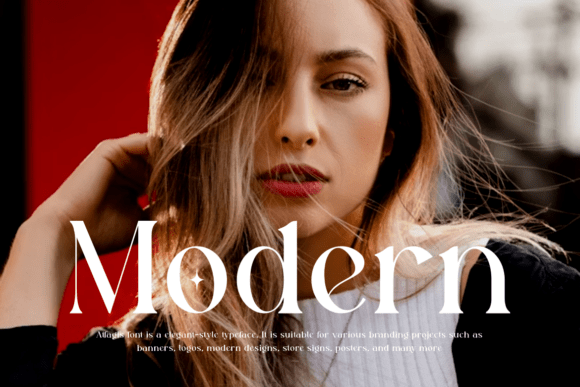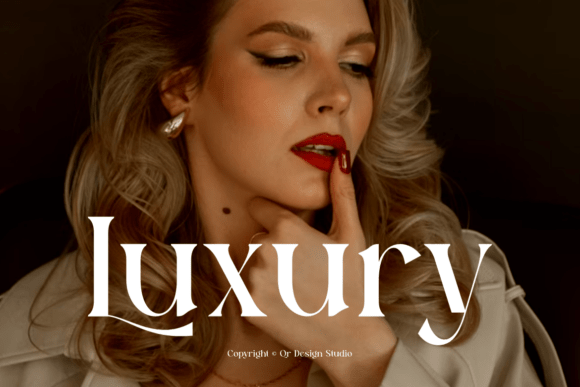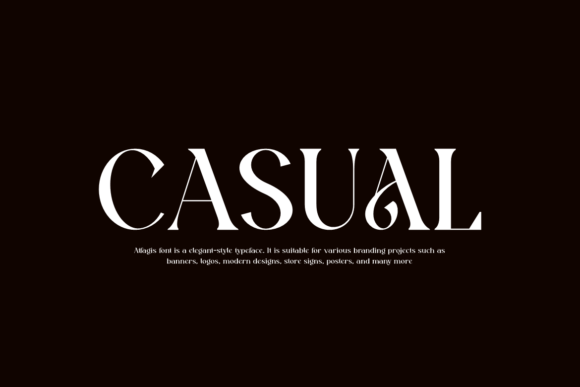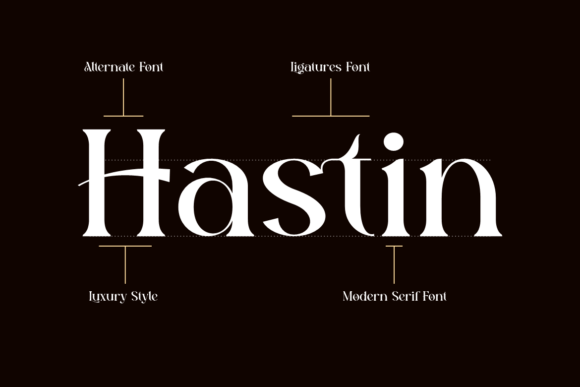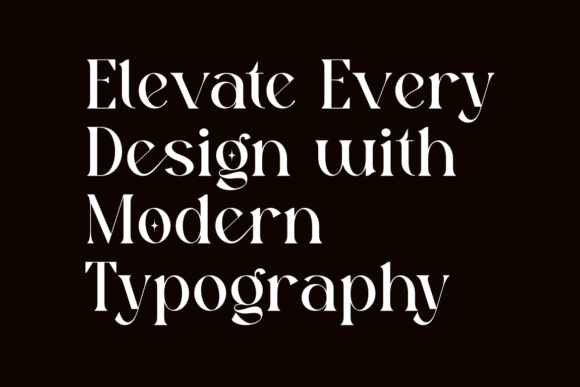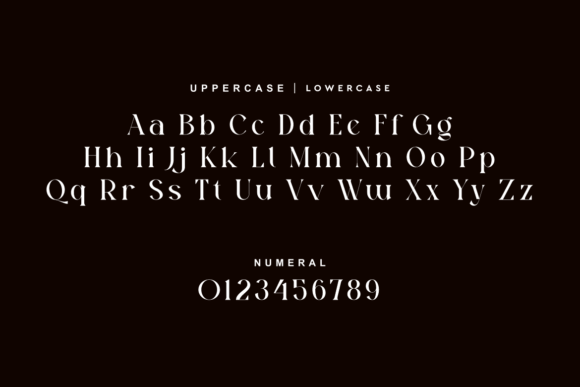
Unlock High-Fashion Allure with Atfagis Font
In the world of high-end design, typography plays a crucial role in conveying luxury, sophistication, and elegance. For designers and crafters seeking to elevate their visual branding, Atfagis Font is the ultimate game-changer. This modern luxury serif font is designed to command immediate prestige, making it the perfect choice for upscale cosmetic logos, boutique jewelry packaging, haute couture runway banners, high-end real estate lookbooks, and prominent fashion magazine covers.
A Contemporary Avant-Garde Masterpiece
Atfagis Font distorts traditional Roman proportions, reimagining them into a contemporary avant-garde masterpiece. Its unique design elements create a distinctive visual identity that exudes high-fashion allure. The font’s regular display typeface is meticulously crafted to provide a sense of luxury and refinement, making it perfect for designers seeking to create high-end visual branding.
Comprehensive Multilingual Support
In today’s global market, designers need fonts that can cater to diverse linguistic requirements. Atfagis Font provides comprehensive multilingual support, ensuring that your design workflow can seamlessly adapt to various languages and regions. This feature makes Atfagis an ideal choice for global high-end design workflows, allowing designers to create visual branding that resonates with diverse audiences.
Instant Shortcut to Elite Visual Branding
Atfagis Font acts as an instant shortcut to elite visual branding, cutting beautifully through rich photography or minimalist editorial canvas space. Its premium design elements instantly elevate the visual appeal of any design project, making it perfect for high-end applications. Whether you’re designing a luxury cosmetic logo or a high-end real estate lookbook, Atfagis Font provides the perfect typographic solution.
Perfect for High-End Design Applications
Atfagis Font is the ultimate strategic centerpiece choice for various high-end design applications, including:
- Upscale cosmetic logos: Add a touch of luxury to your cosmetic brand with Atfagis Font’s elegant and sophisticated design.
- Boutique jewelry packaging: Elevate your jewelry packaging with Atfagis Font’s premium design elements, perfect for high-end boutiques.
- Haute couture runway banners: Make a statement with Atfagis Font’s avant-garde design, perfect for haute couture runway banners.
- High-end real estate lookbooks: Showcase luxury properties with Atfagis Font’s elegant and refined design.
- Prominent fashion magazine covers: Grab attention with Atfagis Font’s striking and sophisticated design, perfect for fashion magazine covers.
Why Choose Atfagis Font?
Atfagis Font offers a unique combination of style, sophistication, and versatility, making it the perfect choice for designers and crafters seeking to elevate their visual branding. Here are some reasons why you should choose Atfagis Font:
- Unique and distinctive design elements
- Comprehensive multilingual support
- Instant shortcut to elite visual branding
- Perfect for high-end design applications
- Meticulously optimized for global high-end design workflows
Atfagis Font is the ultimate luxury serif font for designers and crafters seeking to unlock a new tier of high-fashion allure. Its unique design elements, comprehensive multilingual support, and instant shortcut to elite visual branding make it the perfect choice for high-end design applications. Whether you’re designing a luxury cosmetic logo or a high-end real estate lookbook, Atfagis Font provides the perfect typographic solution. Elevate your visual branding with Atfagis Font and experience the power of high-end typography.